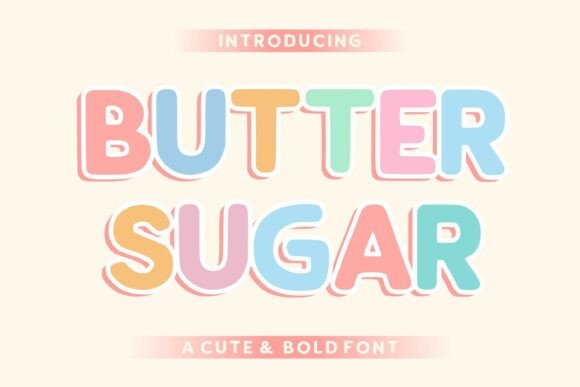
The Sweet Spot: Discovering the Charm of Butter Sugar Font
I’ll never forget the time I was working on a children’s party invitation project, and I just couldn’t find the right font to capture the playful, whimsical vibe I was going for. The client wanted something that would appeal to both kids and adults, and I was determined to deliver. That’s when I stumbled upon Butter Sugar Font, and it was love at first sight! 💕
With its soft curves, bold personality, and retro charm, Butter Sugar instantly added a sprinkle of sweetness to my design. In this article, I’ll share my honest review of this delightful font, provide a practical guide on how to use it, and explore similar fonts you might enjoy.
An Honest Review of Butter Sugar Font
• Playful and eye-catching design that’s perfect for children’s projects, branding, and social media graphics 🎉
• Rounded letterforms and pastel-inspired styling that evoke a sense of nostalgia and fun 🌸
• Thick strokes and smooth edges that ensure excellent readability while maintaining a whimsical look 🔍
• OpenType features and glyphs that allow for creative experimentation and customization 🎨
While Butter Sugar Font is an amazing addition to any design project, there are a few things to keep in mind:
• Limited use of uppercase letters, which might require creative workarounds for certain design applications 🤔
• Some users might find the font a bit too bold or overpowering for certain projects ⚠️
The Backstory Behind Butter Sugar Font 📚
Butter Sugar Font was designed with the intention of capturing the magic of childhood and the joy of sweet treats. The designer, inspired by vintage candy advertisements and childhood memories, aimed to create a font that would bring a smile to people’s faces. With its playful curves and pastel colors, Butter Sugar Font is sure to transport you back to a world of wonder and delight 🌟
What type of projects is Butter Sugar Font best suited for?
Butter Sugar Font is perfect for children’s projects, branding, social media graphics, packaging, posters, and sweet-themed designs 🎉